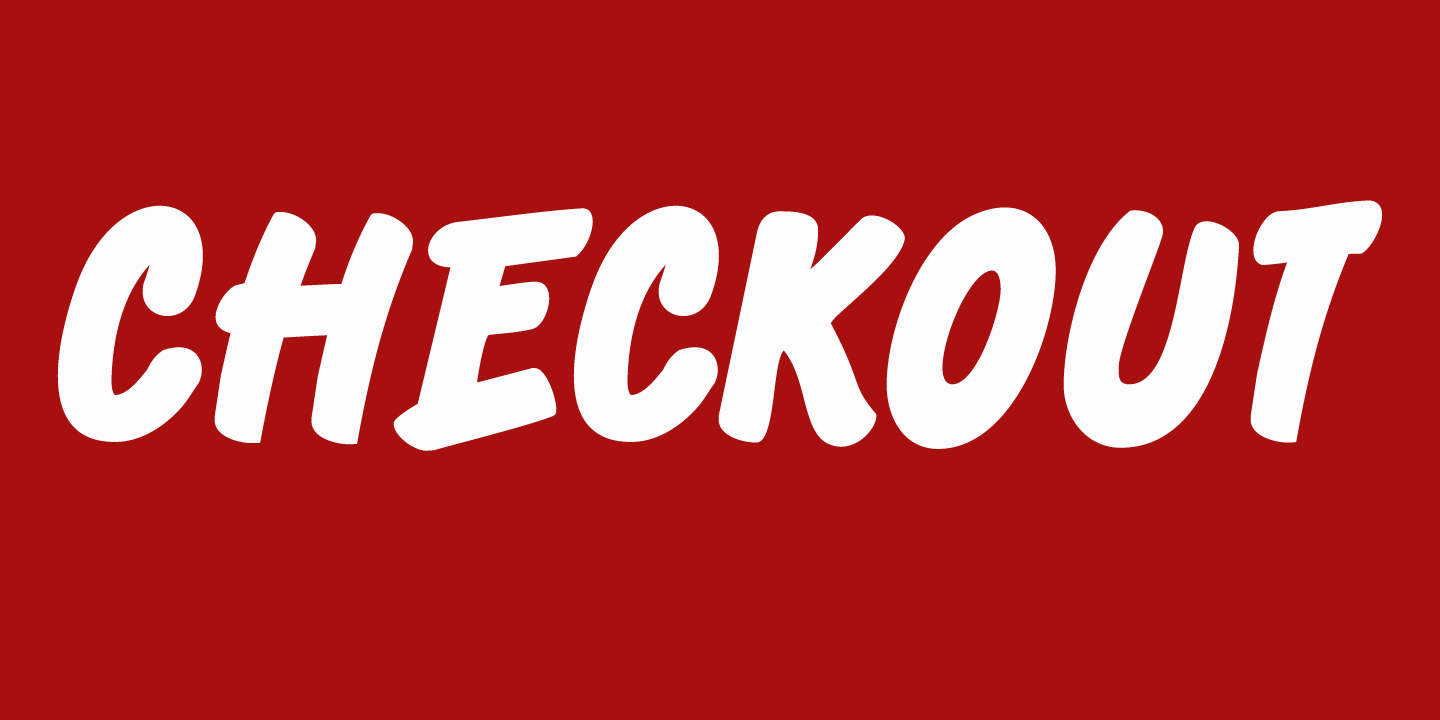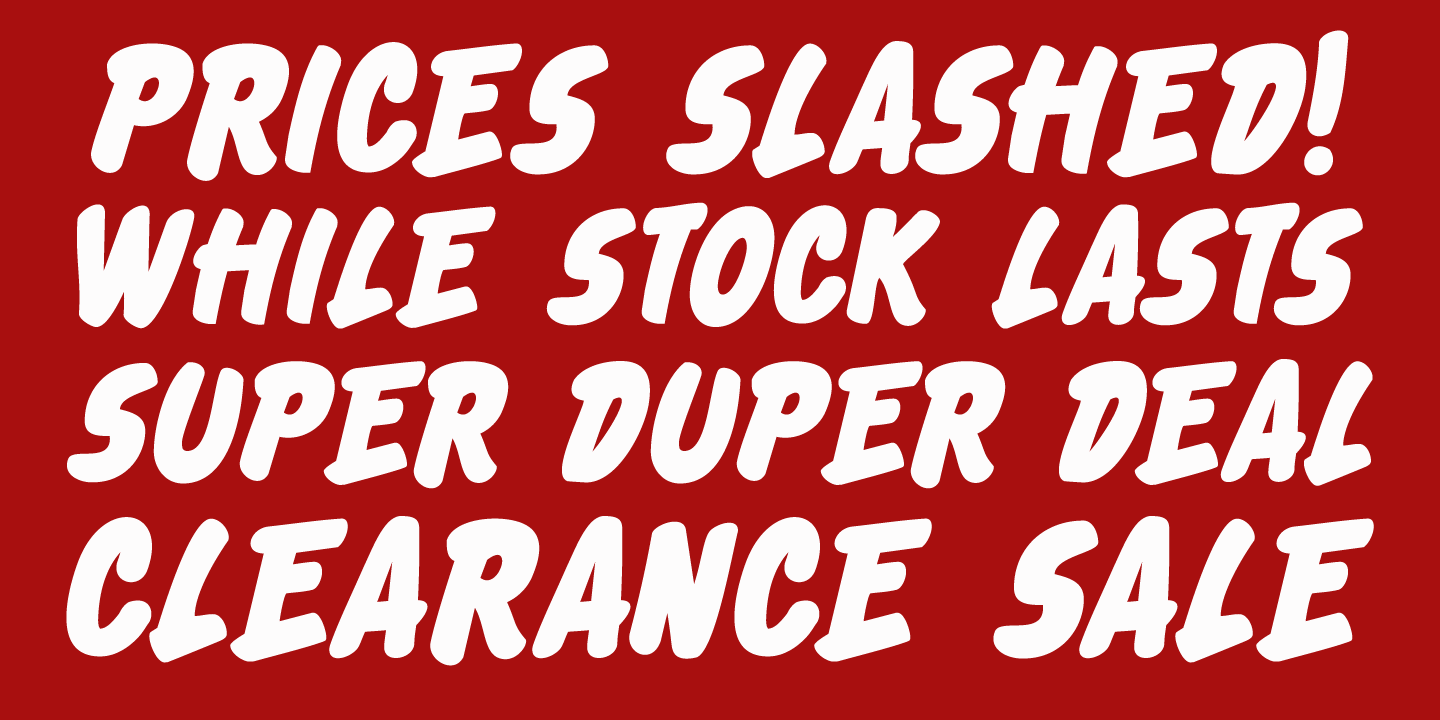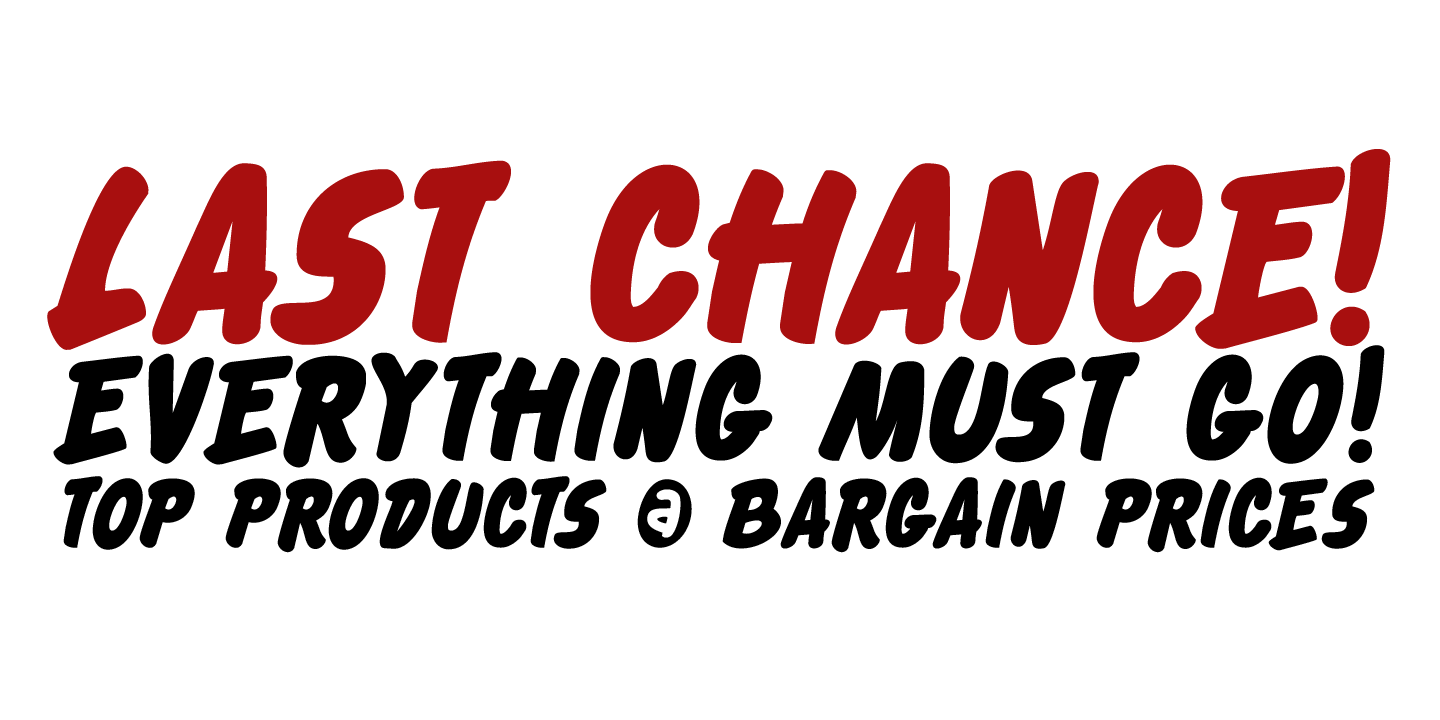
Checkout
Checkout is a fat, slightly cursive, poster font. It was modeled after 'clearance sale' signs and a 1950 Mexican movie poster for Los Olvidados (directed by Luis Bu